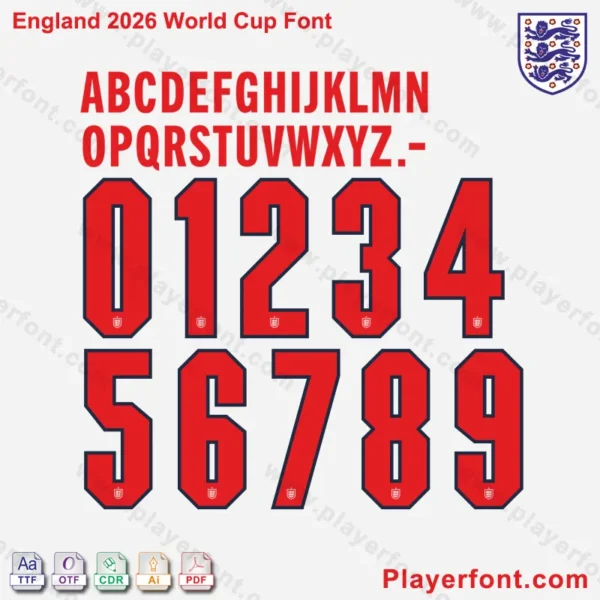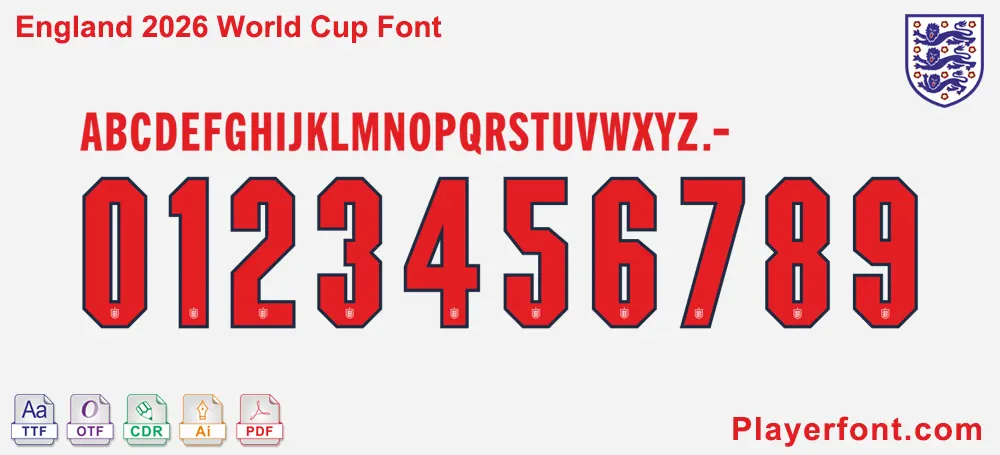
England 2026 World Cup Font Kit
Complete character set of the England 2026 World Cup Font.
• Full Character Set: Includes all uppercase letters (A-Z), numbers (0-9), and special punctuation marks.
• High Precision: Sharply defined edges and geometric angles, perfect for heat-press vinyl and sublimation.
England 2026 World Cup jersey numbers and letters preview for football kit design.England 2026 World Cup Font Kit